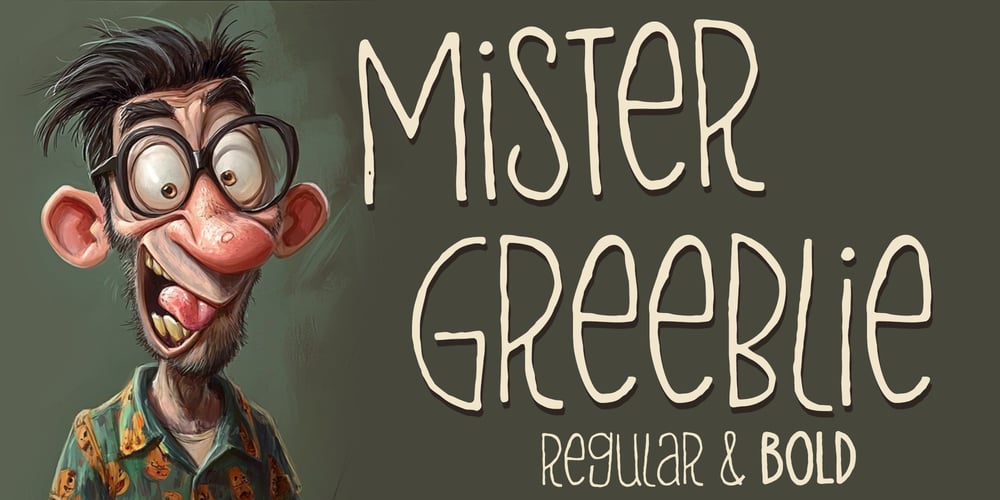
Mister Greeblie
Mister Greeblie font
Mister Greeblie Font Family was designed by Brian J. Bonislawsky, Dave Cohen and published by One Eyed Squid. Mister Greeblie contains 2 styles and family package options. Dig that crazy Mister Greeblie! He’s a bit wobbly, a tad wacky, and wonderfully weird. Mister Greeblie is a gas in both regular and bold weights. Get Greeblie today and get that grungy groove!(Mister Greeblie contains an extended Latin character set with added Vietnamese support.)